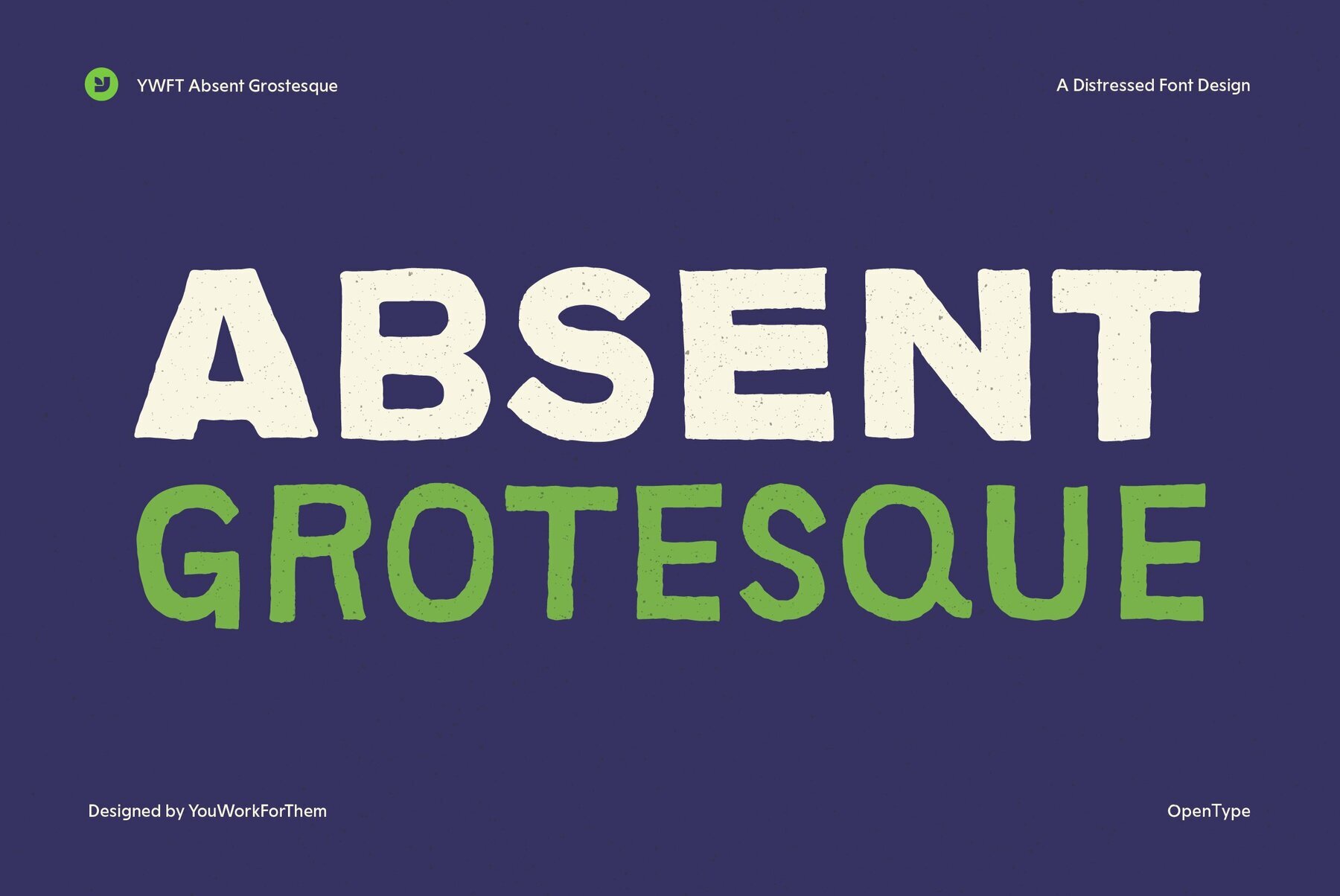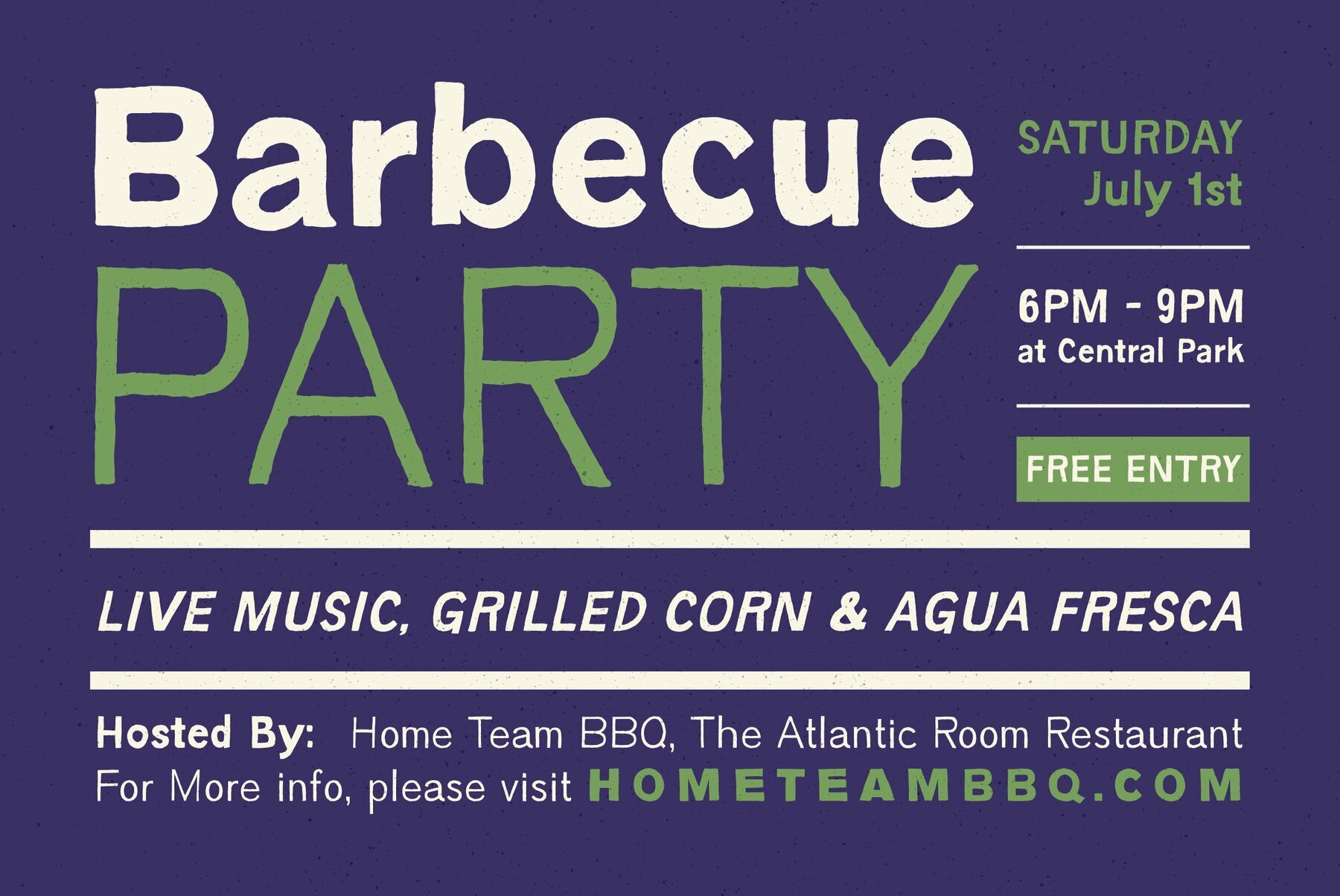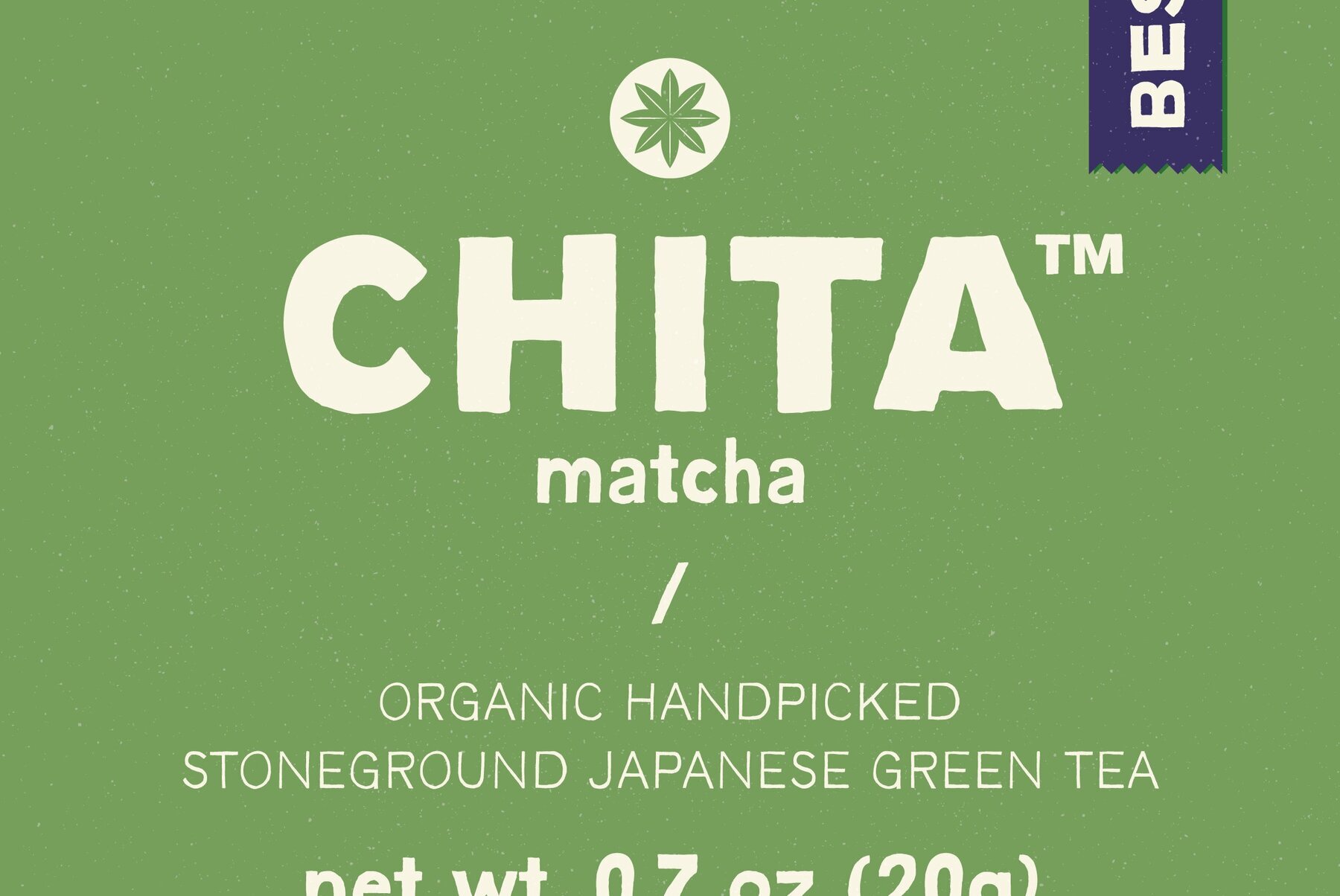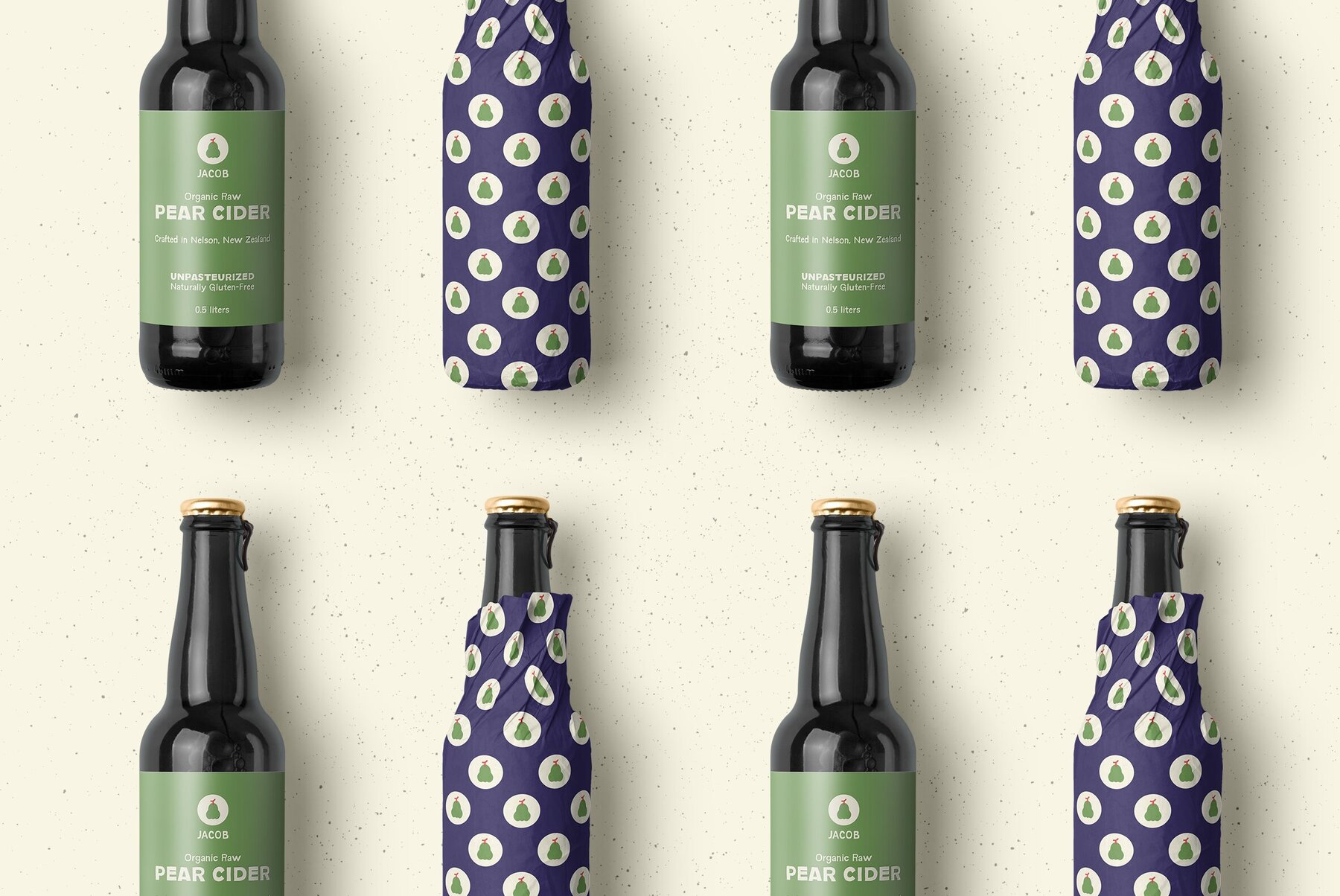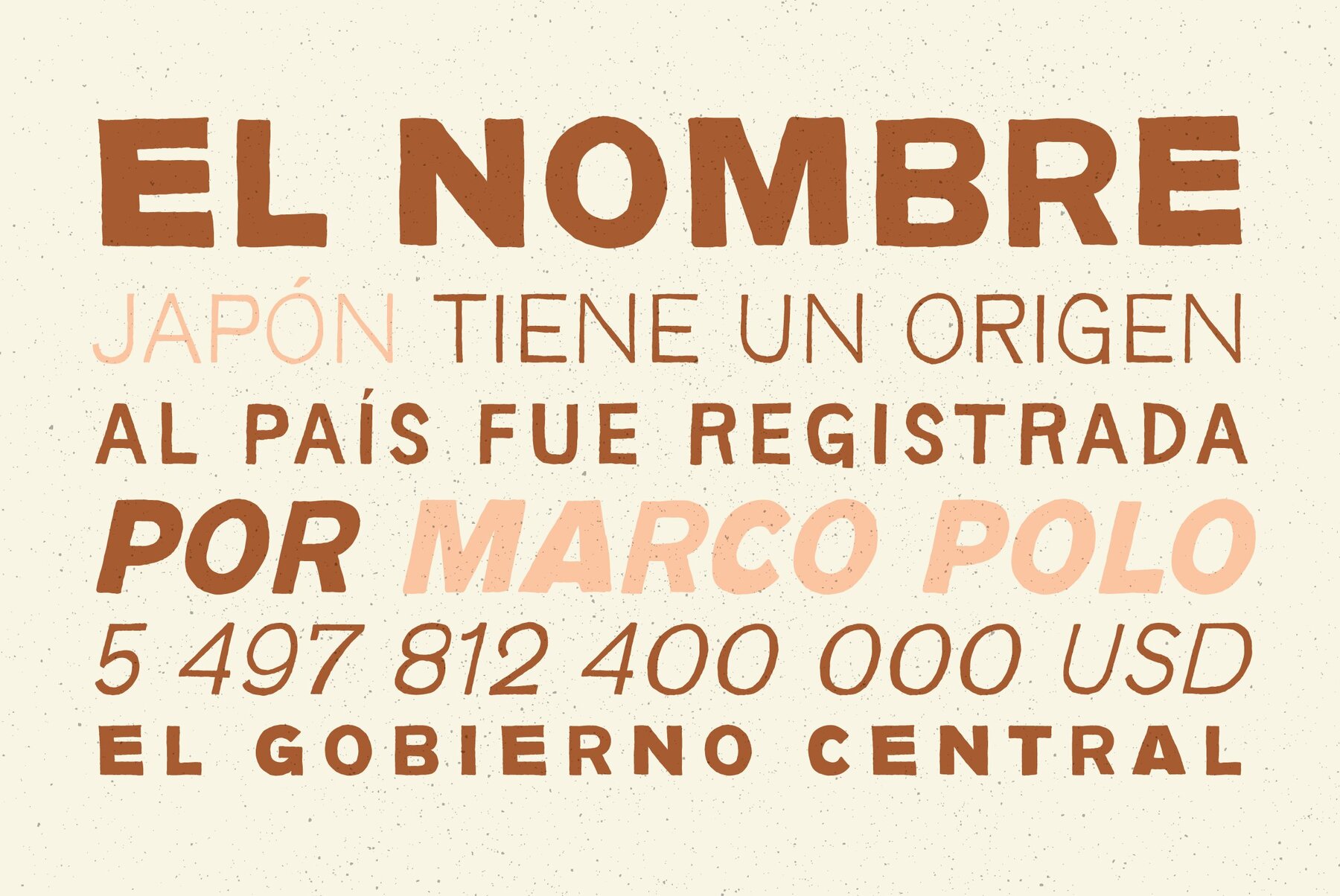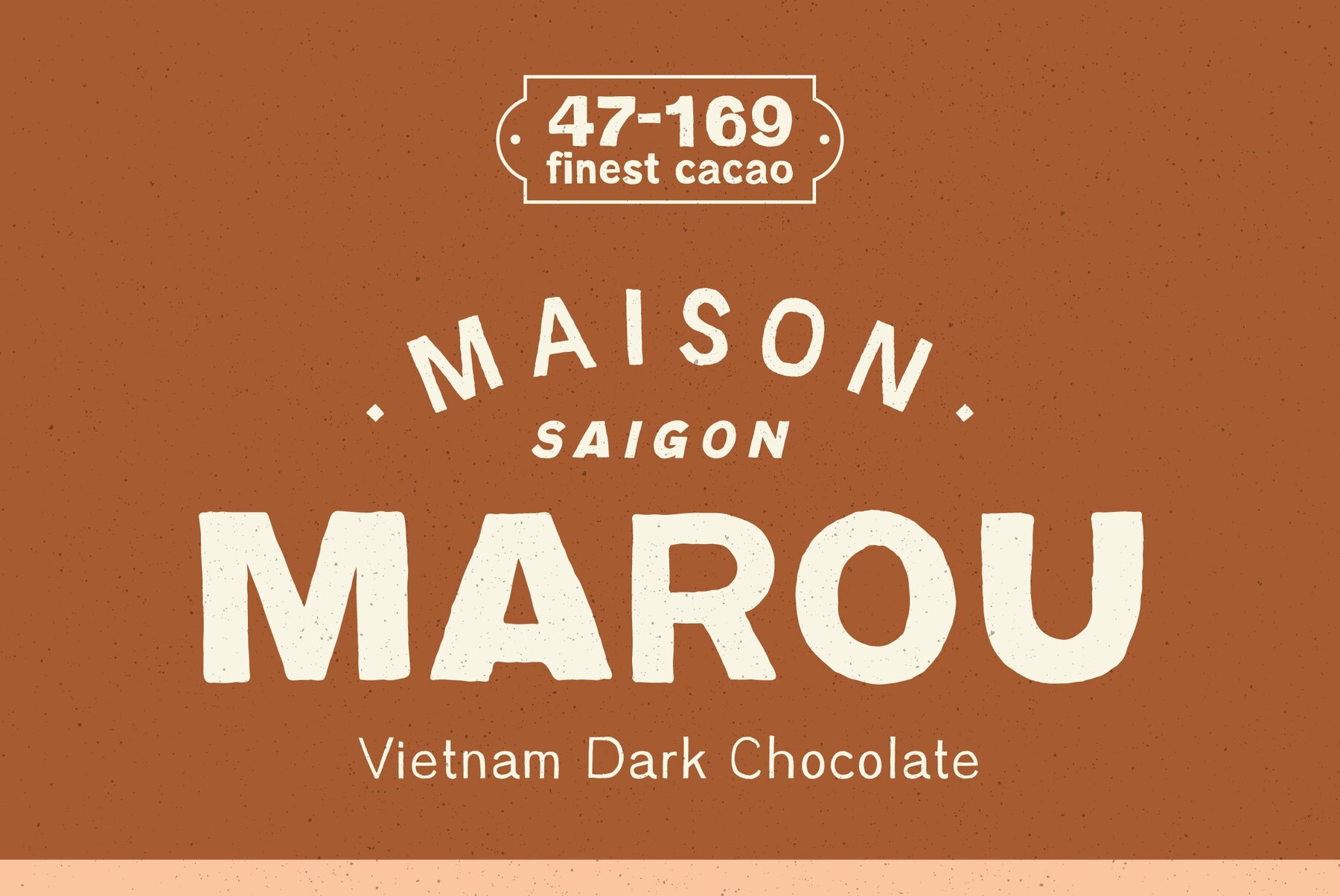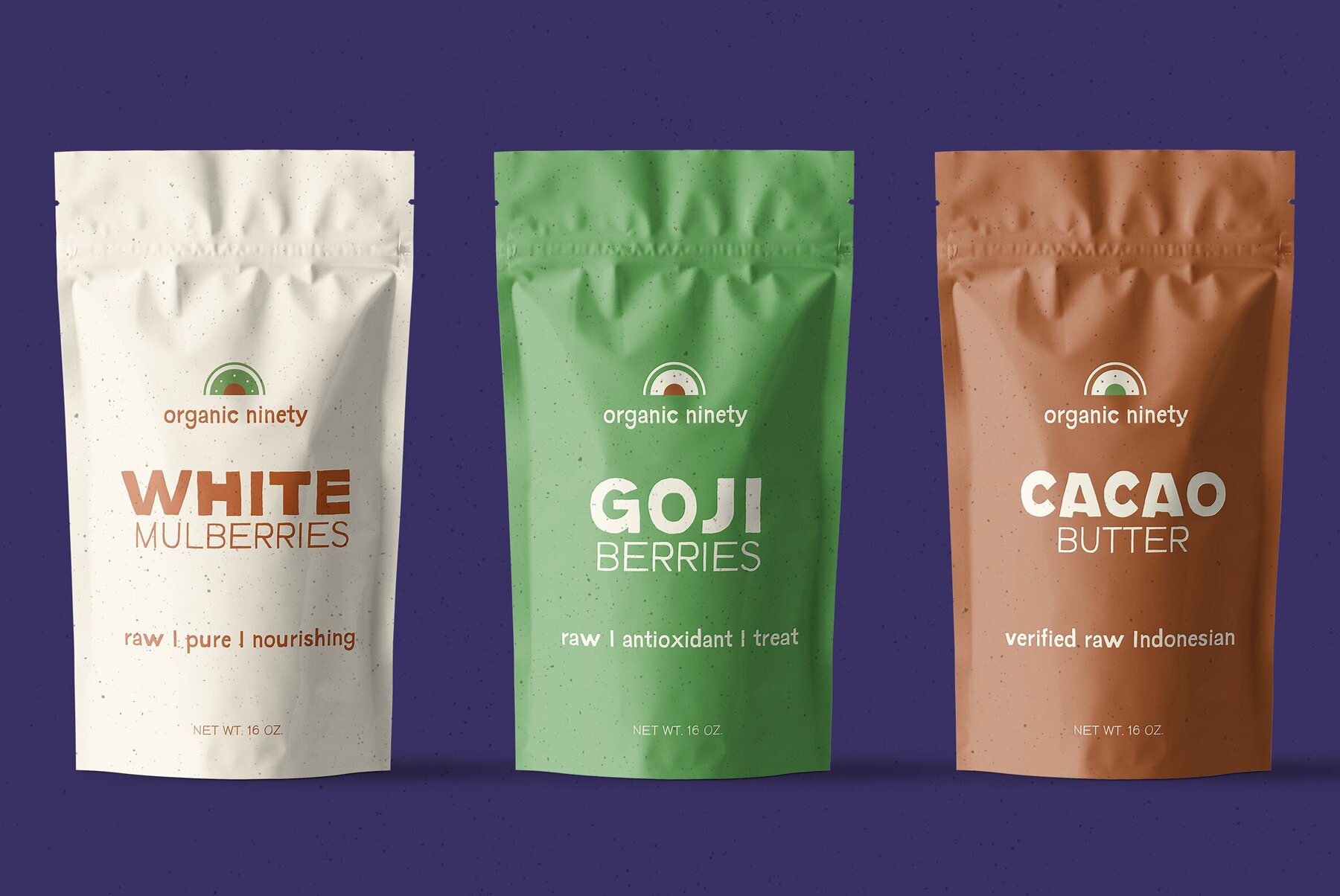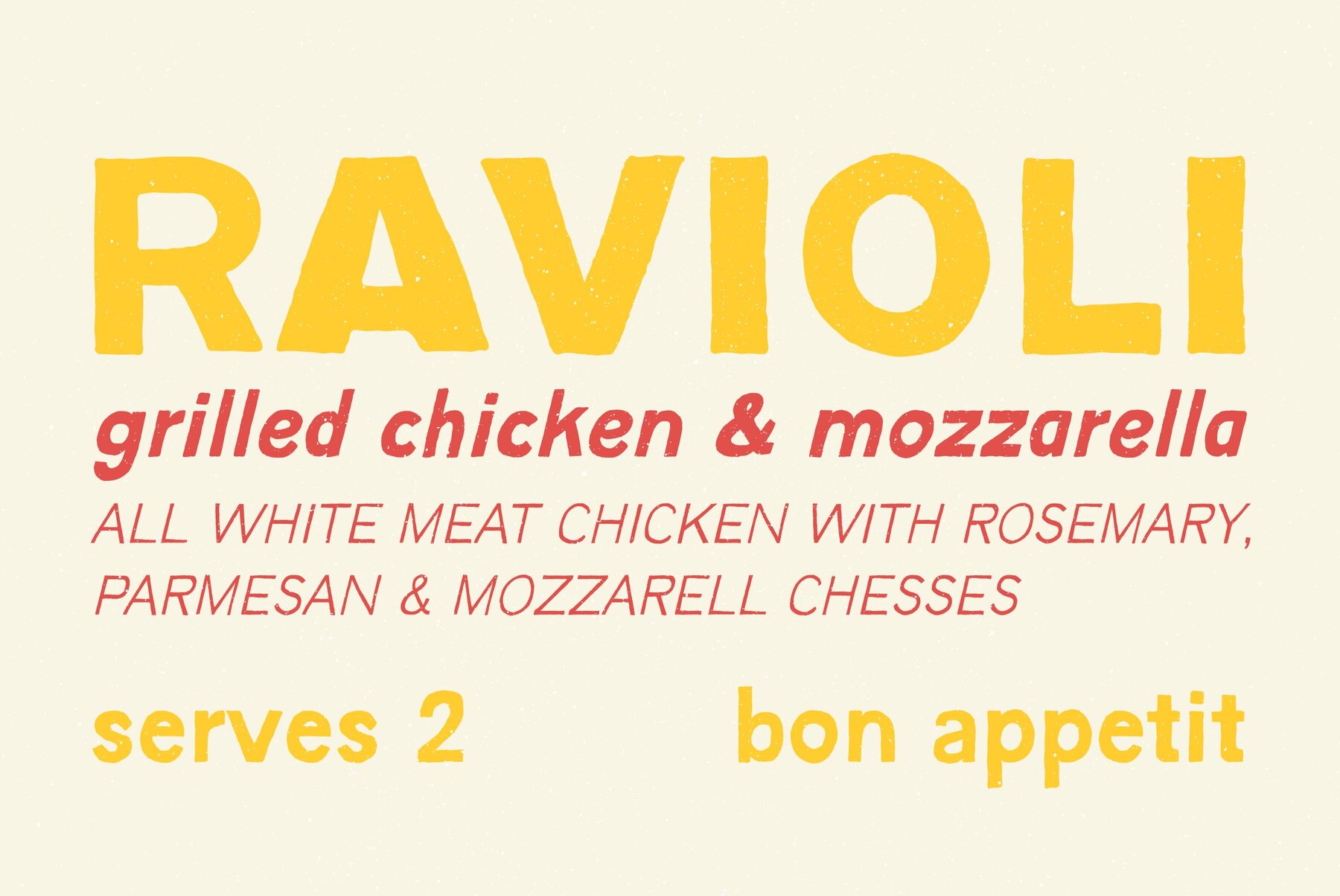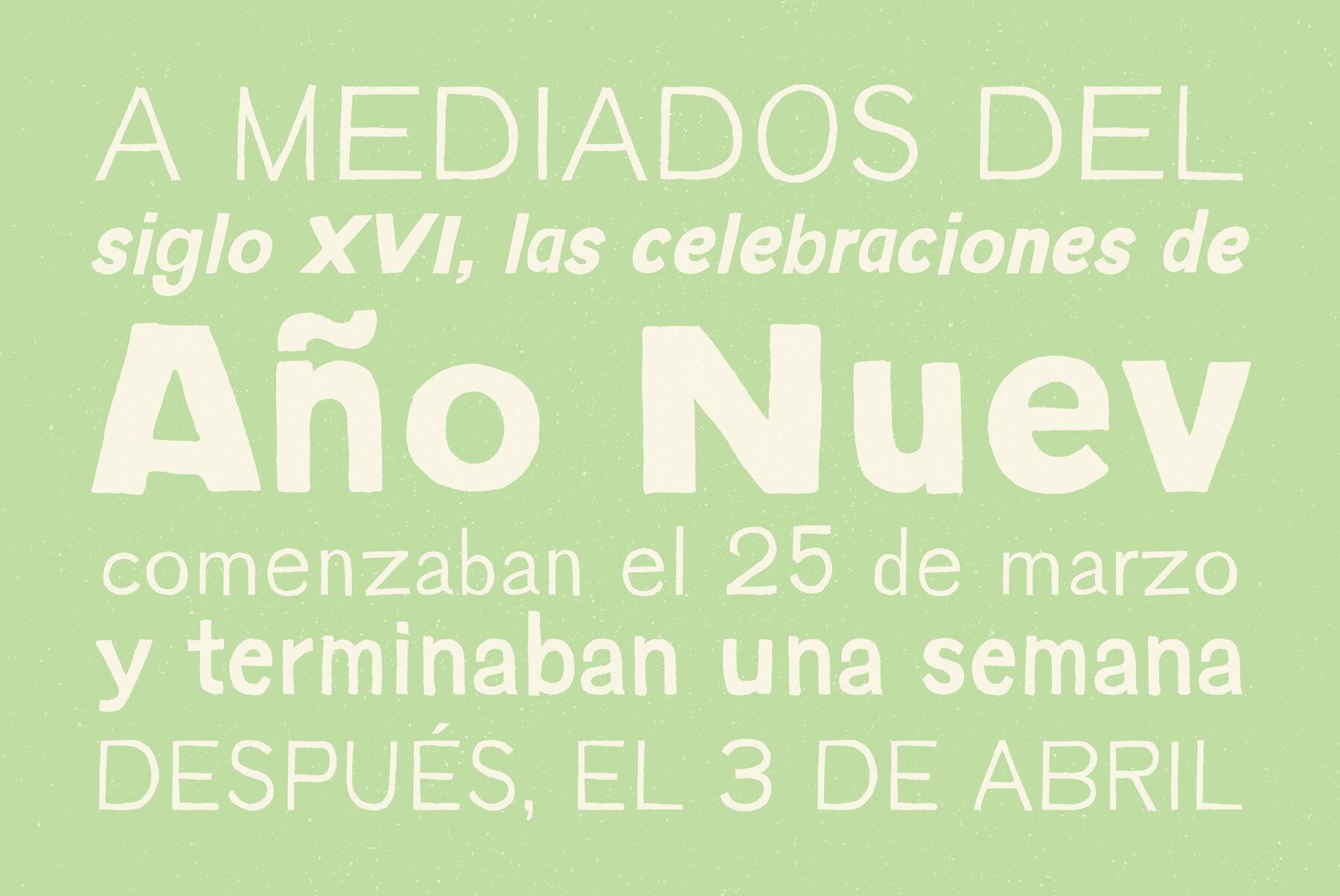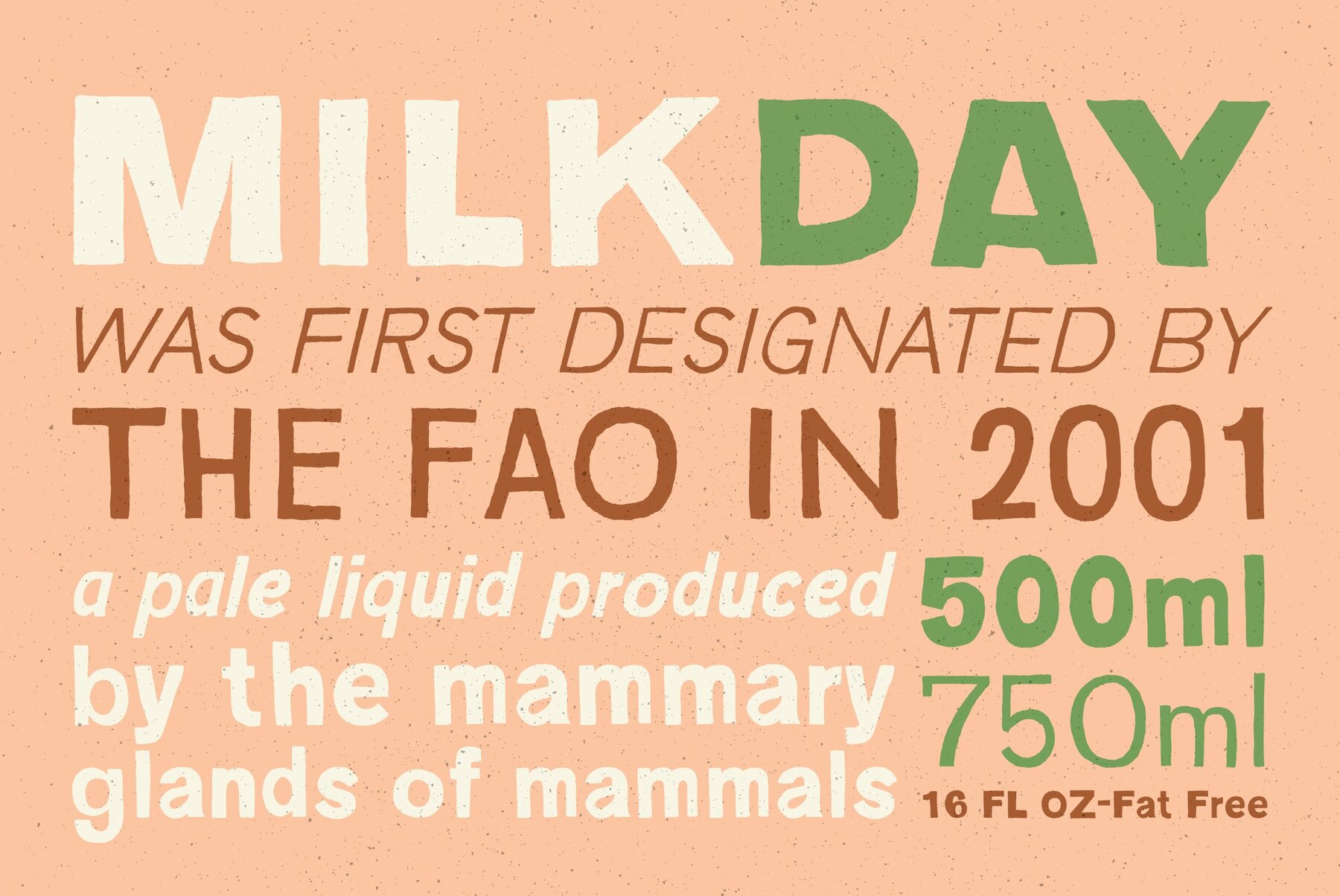
In these over-Photoshopped times, a little imperfection can make your work stand out and excel. YWFT Absent Grotesque was created to be an imperfect typeface, exploring ideas found in Univers and Helvetica without the serious attitude and over-marketing....
In these over-Photoshopped times, a little imperfection can make your work stand out and excel. YWFT Absent Grotesque was created to be an imperfect typeface, exploring ideas found in Univers and Helvetica without the serious attitude and over-marketing. It was designed in three weights by three different designers, and then tested by three more. The result is a powerful, beautifully flawed opentype masterpiece of alternates and unique type design. YWFT Absent Grotesque has been in the Top Five sellers on YWFT since 2008, and has been used by numerous American magazines. Designed exclusively by Michael Cina and YouWorkForThem.